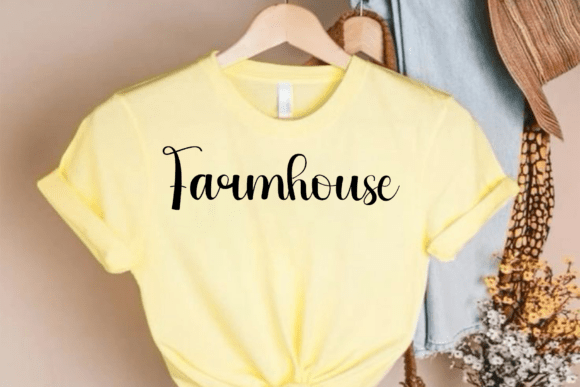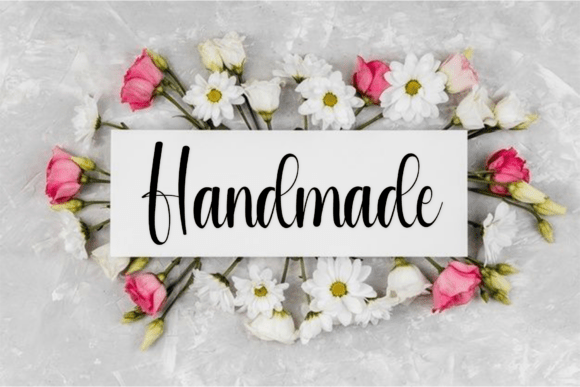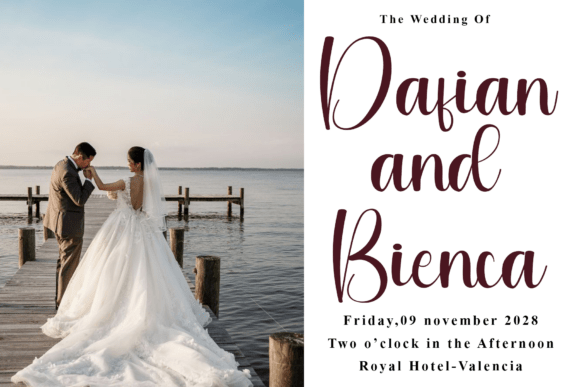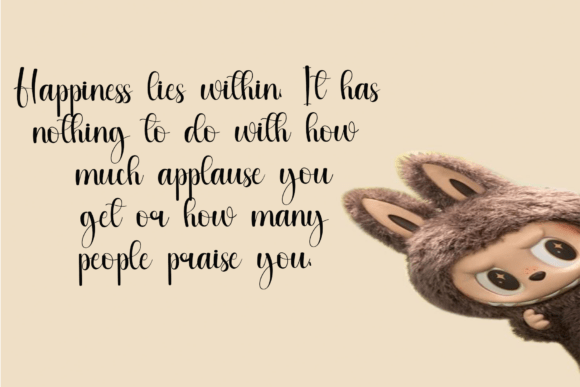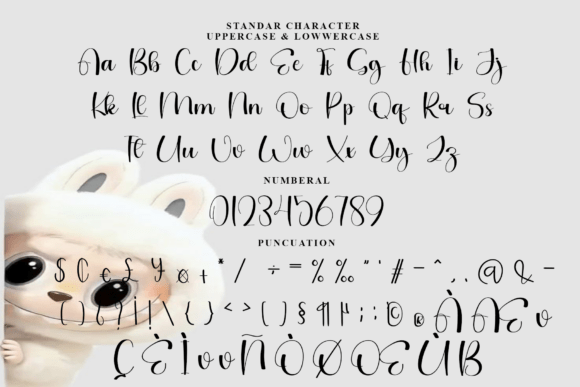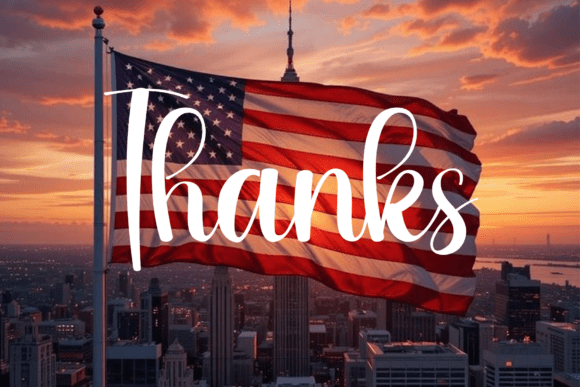
Introducing American Font: Elevate Your Design with a Sophisticated Autumnal Script
In the world of typography, fonts play a crucial role in conveying the tone and aesthetic of a brand or design. For those seeking a unique and professional visual voice, American Font is an exceptional choice. This stunning script font is part of a modern handwritten collection, designed to evoke the warmth and sophistication of the autumn season.
Characteristics of American Font
American Font boasts a distinctive set of characteristics that set it apart from other typefaces. Its high-contrast strokes feature thick, grounded downstrokes and delicate hairline connectors, creating a sense of elegance and refinement. The font’s vertically elongated letterforms and graceful, looping ascenders are reminiscent of high-end inkwork, adding a touch of luxury to any design.
Perfect for Autumn Marketing and Design Projects
As a premier asset for seasonal autumn marketing, American Font is ideal for designers and crafters looking to create eye-catching and sophisticated designs. Its autumnal visual voice makes it perfect for:
- Seasonal autumn marketing campaigns, such as holiday promotions and limited-time offers
- Artisanal food packaging, including labels, branding, and packaging design
- Boutique event invitations, such as weddings, harvest festivals, and fall-themed parties
- Sophisticated editorial headers, including magazine articles, blog posts, and social media graphics
Why Choose American Font?
With American Font, designers and crafters can elevate their designs with a unique and professional typeface that exudes sophistication and elegance. Here are just a few reasons why American Font stands out:
- Unique and distinctive: American Font’s high-contrast strokes and elegant letterforms make it a standout in any design
- Versatile: Suitable for a wide range of design projects, from marketing and packaging to editorial and event design
- High-end feel: American Font’s luxurious, inkwork-inspired aesthetic adds a touch of sophistication to any design
- Easy to read: Despite its elegant and refined appearance, American Font remains highly legible, making it perfect for body text and headlines
Tips for Using American Font in Your Designs
To get the most out of American Font, consider the following tips:
- Pair with complementary fonts: Combine American Font with simpler, sans-serif fonts to create visual interest and contrast
- Experiment with color: American Font looks stunning in rich, autumnal colors, such as golden yellow, burnt orange, and deep red
- Use for headlines and titles: American Font’s elegant and refined appearance makes it perfect for headlines, titles, and other display text
- Don’t be afraid to get creative: American Font’s versatility and unique aesthetic make it an excellent choice for experimental and creative design projects
American Font is a sophisticated and rhythmic script font that embodies the essence of the autumn season. With its high-contrast strokes, elegant letterforms, and luxurious aesthetic, it’s the perfect choice for designers and crafters seeking to elevate their designs with a unique and professional visual voice. Whether you’re working on autumn marketing campaigns, artisanal food packaging, boutique event invitations, or sophisticated editorial headers, American Font is an exceptional asset that is sure to impress.